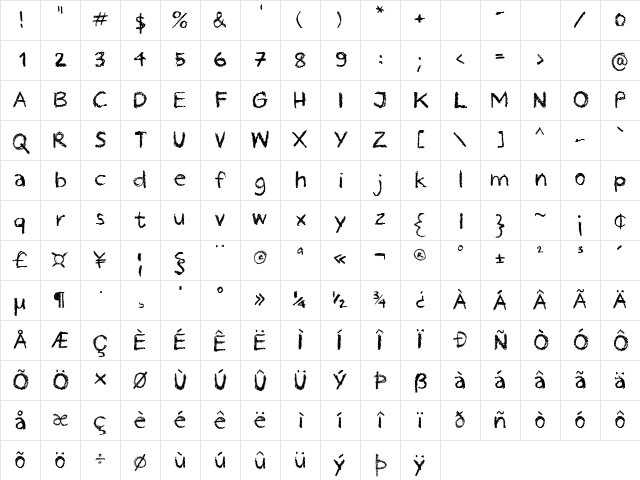
Crayon Hand Regular 2016 Demo Regular
Foundry: ursula hitz
Designer: ursula hitz
Year: 2016
Design Context for Crayon Hand Regular 2016 Demo
Crayon Hand Regular 2016 Demo flows with the natural rhythm of handwritten lettering, making it ideal for designs that call for warmth and personal expression.
Font Pairing: Combine Crayon Hand Regular 2016 Demo with a simple geometric sans for maximum contrast - the tension between flowing curves and clean structure is a classic typographic pairing.
Pro Tip: Use Crayon Hand Regular 2016 Demo for short runs of text - names, titles, or taglines. Extended body copy in script faces tires the eye quickly.